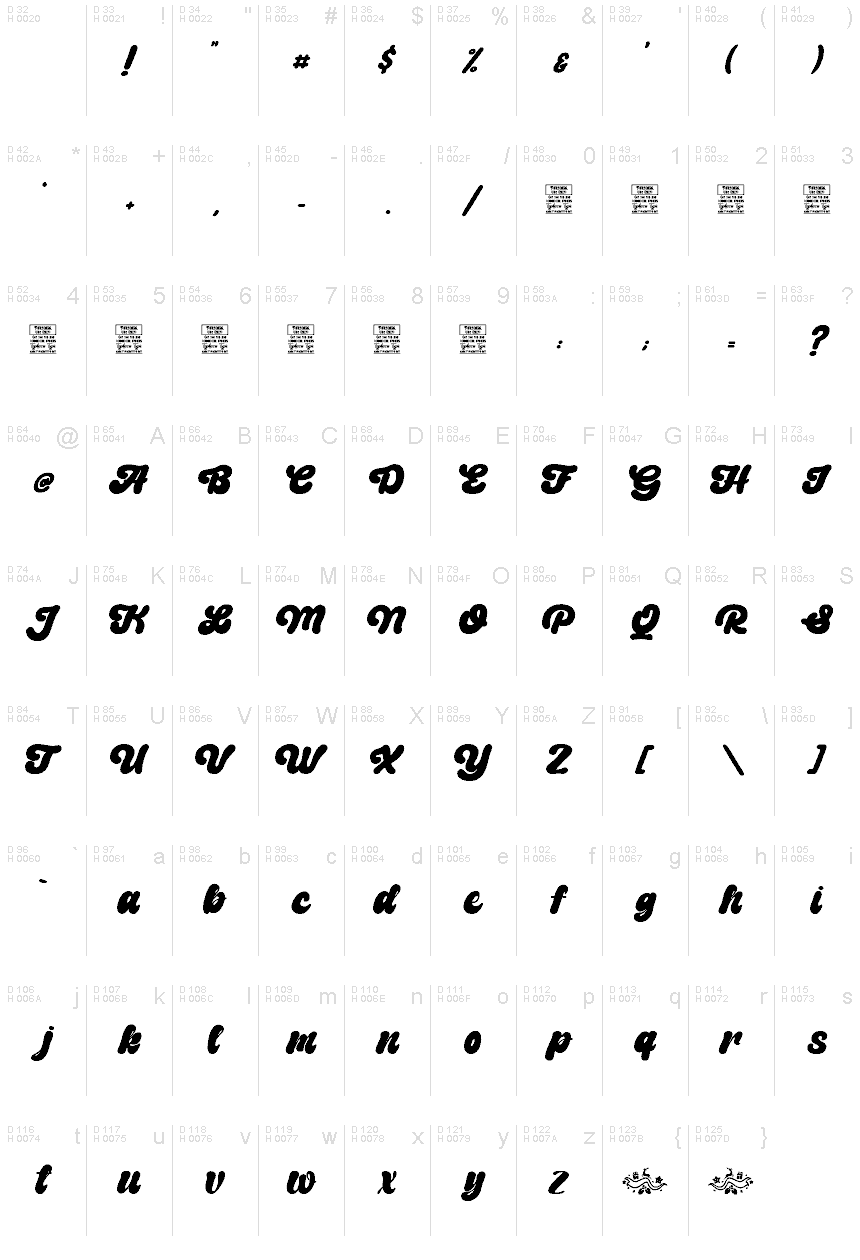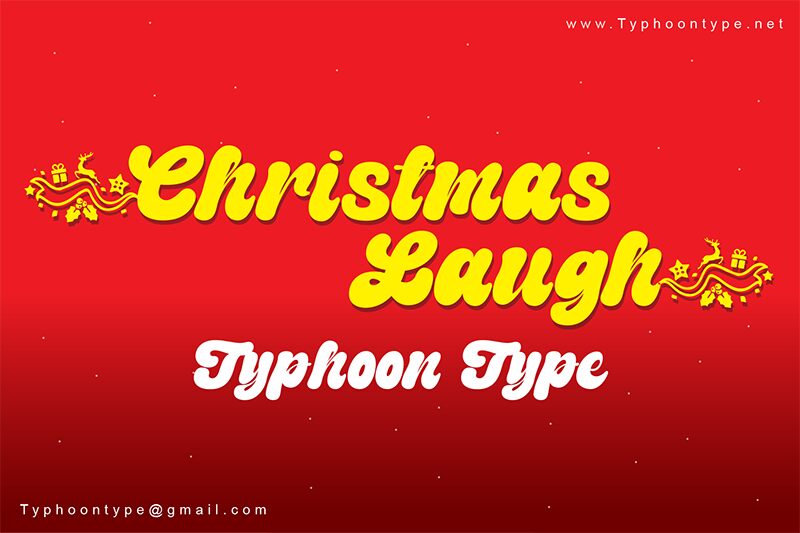
“Christmas Laugh” is the perfect font for your Christmas projects. This hand drawn style brush typeface is bold and dashing. It’s ideal for titles, posters, logos and other texts that need a special touch. The characters are well balanced and easily readable.
Type { before a word to apply the beginning Christmas Swash, and type } after the word to apply the ending Christmas Swash.
Example: {Christmas Laugh}